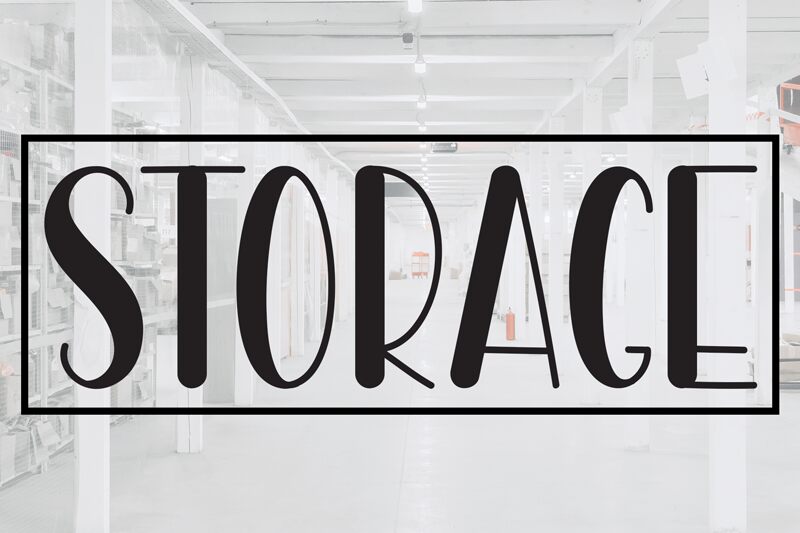
Storage
Storage, designed by Scratchones, is a striking example of an extra-condensed vintage script font that exudes elegance and a timeless charm. Its slender profile and sweeping curves encapsulate the classic flair of yesteryear while maintaining a sleek modern edge. This font's unique character shines in its delicate balance between ornate script elements and the efficient use of space, making it an exceptional choice for projects seeking to blend nostalgia with contemporary sensibilities.
The aesthetic appeal of Storage lies in its ability to provide a sophisticated touch without overwhelming the design. Its style is perfect for high-end branding, stylish packaging, or evocative editorial work where space is at a premium but style cannot be compromised. Embrace the distinctiveness of Storage for creative endeavors that demand an impactful font with an air of refinement.